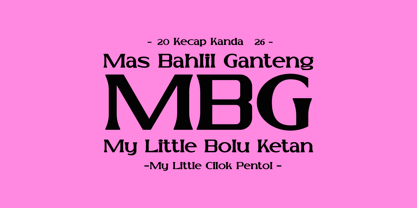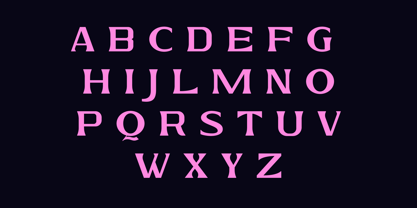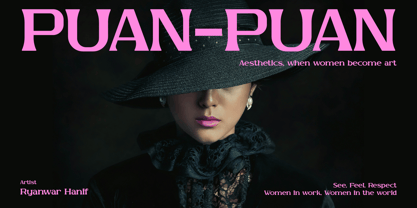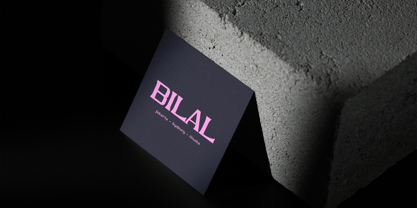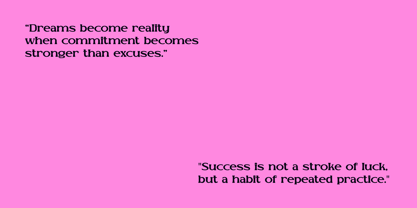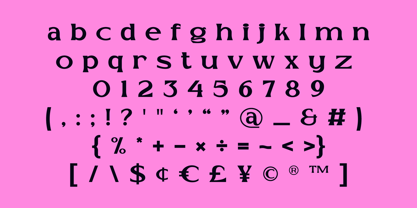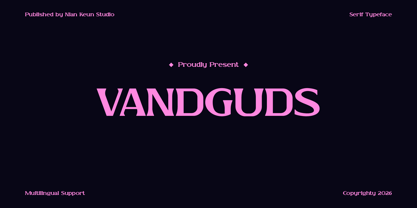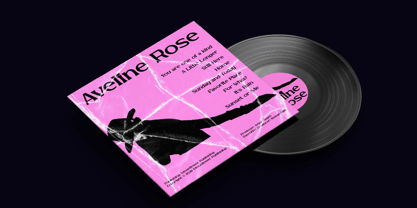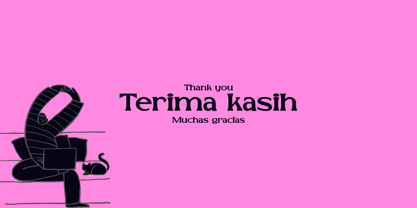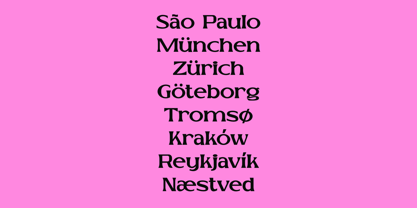
Vandguds
by Nian Keun Studio
The Vandguds Font Family was designed by Mugi Raharjo and published by Nian Keun Studio. Vandguds contains 1 styles. More about this family
Vandguds is a high-contrast serif display typeface designed to create a bold, elegant, and dramatic visual presence. Its distinctive letterforms combine sharp, sculptural details with refined proportions, giving the typeface a sophisticated yet expressive character.
Designed primarily for display use, Vandguds performs beautifully at large sizes where its dramatic contrast and unique serif details can fully stand out. It is a strong choice for fashion branding, editorial design, posters, headlines, logos, packaging, and other projects that require a luxurious and memorable typographic identity.
Designers: Mugi Raharjo
Foundry: Nian Keun Studio